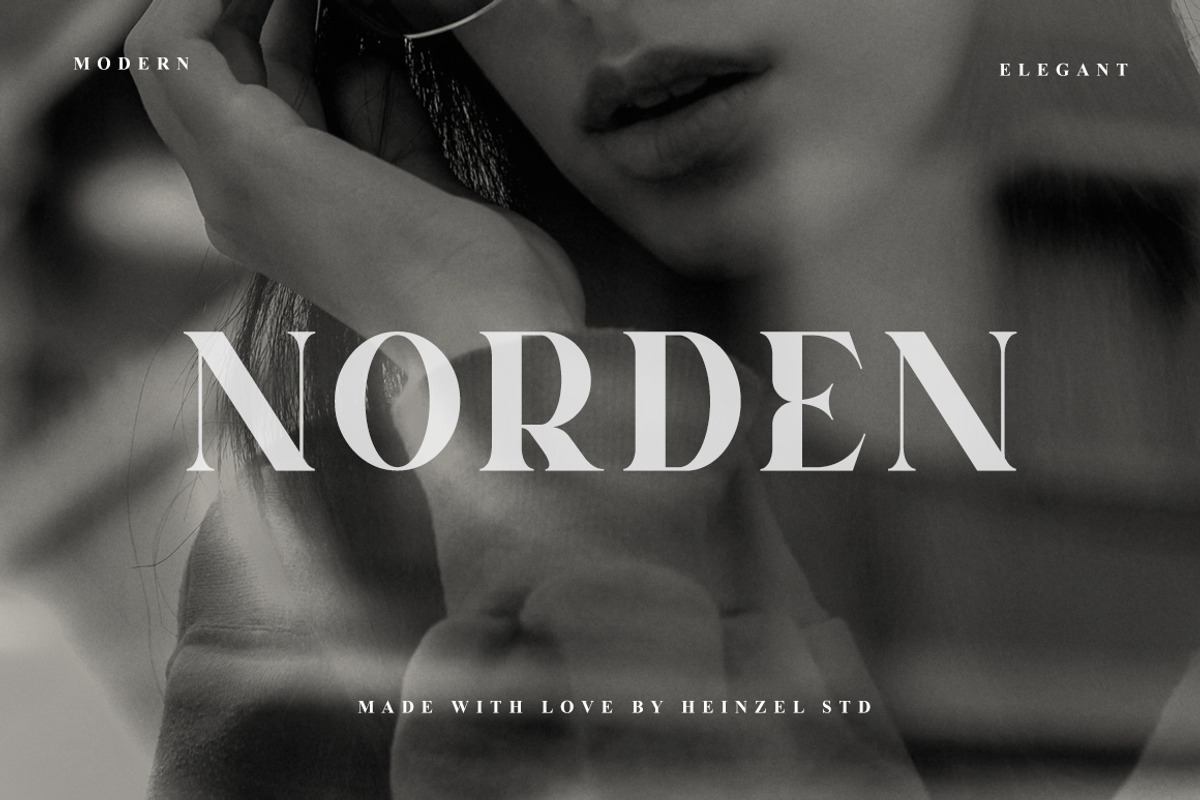
Norden Modern All Caps Serif Font Free Download is a bold and sophisticated typeface that combines timeless serif elegance with a modern, all-uppercase design. Perfect for high-impact branding, magazine titles, fashion editorials, packaging, and logo designs, Norden brings authority and style to any visual project.
Norden Modern All Caps Serif Font Free Download delivers clean lines, sharp edges, and a confident aesthetic that’s ideal for making statements with clarity and class. Whether you're crafting a premium identity or designing bold, editorial visuals, this font offers a polished, professional touch. Download it now and elevate your typography with Norden’s striking, all-caps presence.